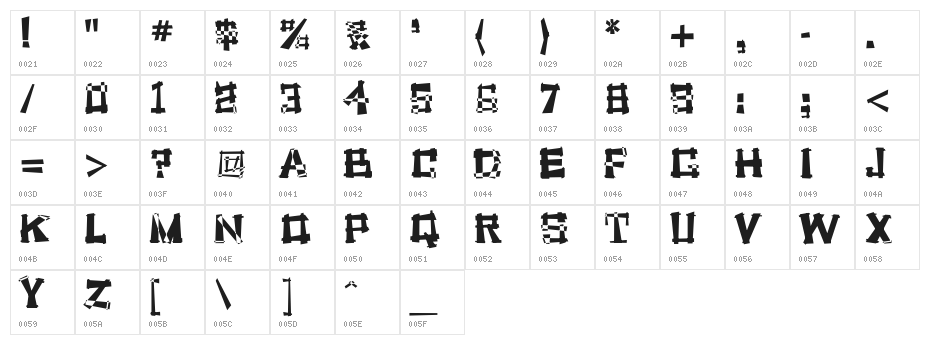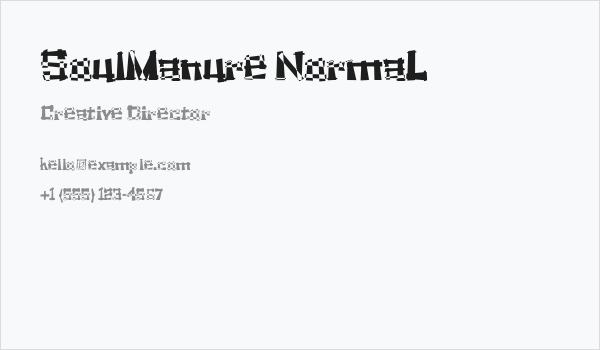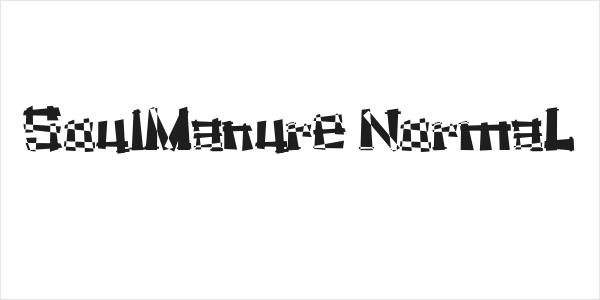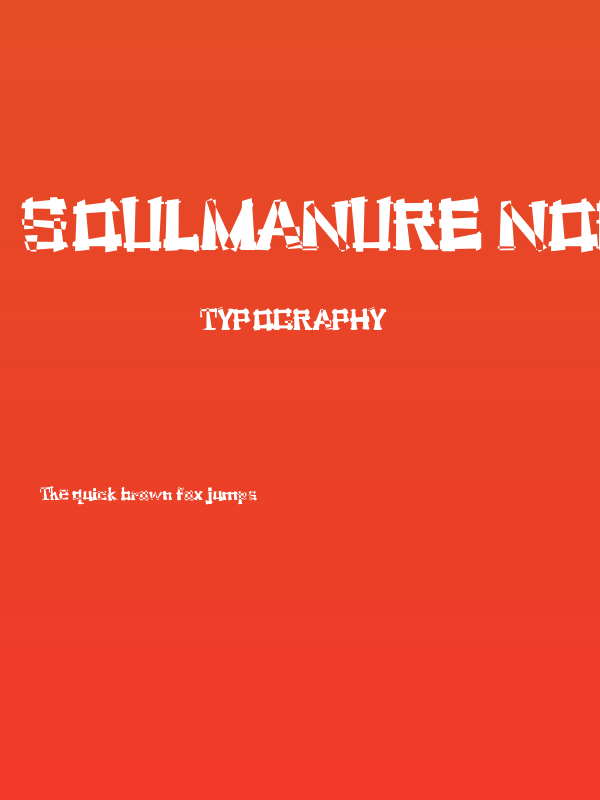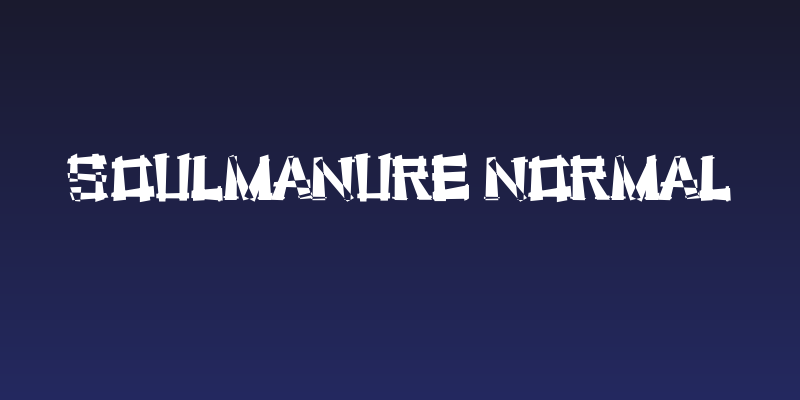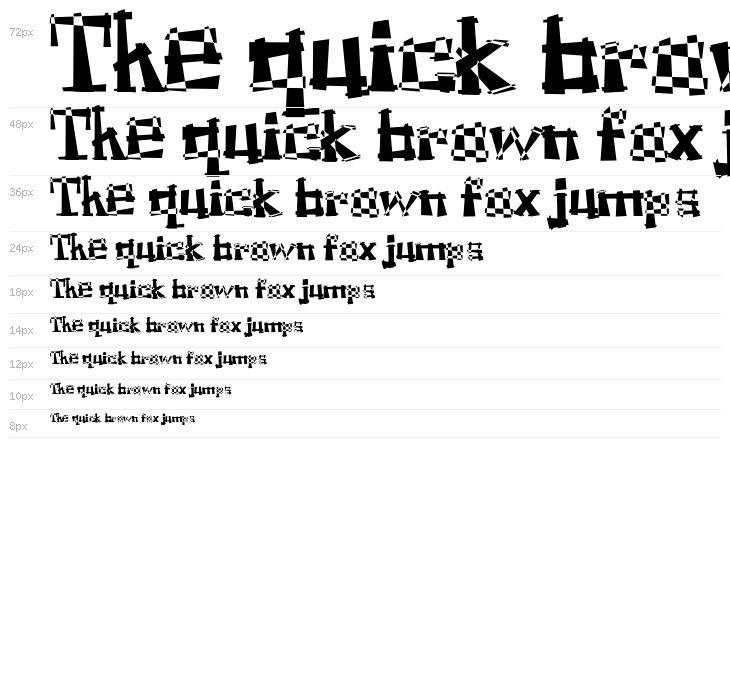
SoulManure NormaL Font
SoulManure NormaL Description
This font features a highly distinctive and chaotic design, characterized by its fragmented and irregular letterforms. Each character appears to be constructed from a collage of geometric shapes, creating a sense of movement and dynamism. The bold, blocky appearance is accentuated by sharp angles and varying line thicknesses, giving it a rugged and edgy feel. The uppercase and lowercase letters maintain a consistent style, while the numbers and special characters follow the same fragmented aesthetic, ensuring a cohesive look across all glyphs. This font's unique style makes it stand out, offering a bold statement in any design.
| Proposed Projects | Ideal for album covers, posters, or any project needing a bold, edgy aesthetic. |